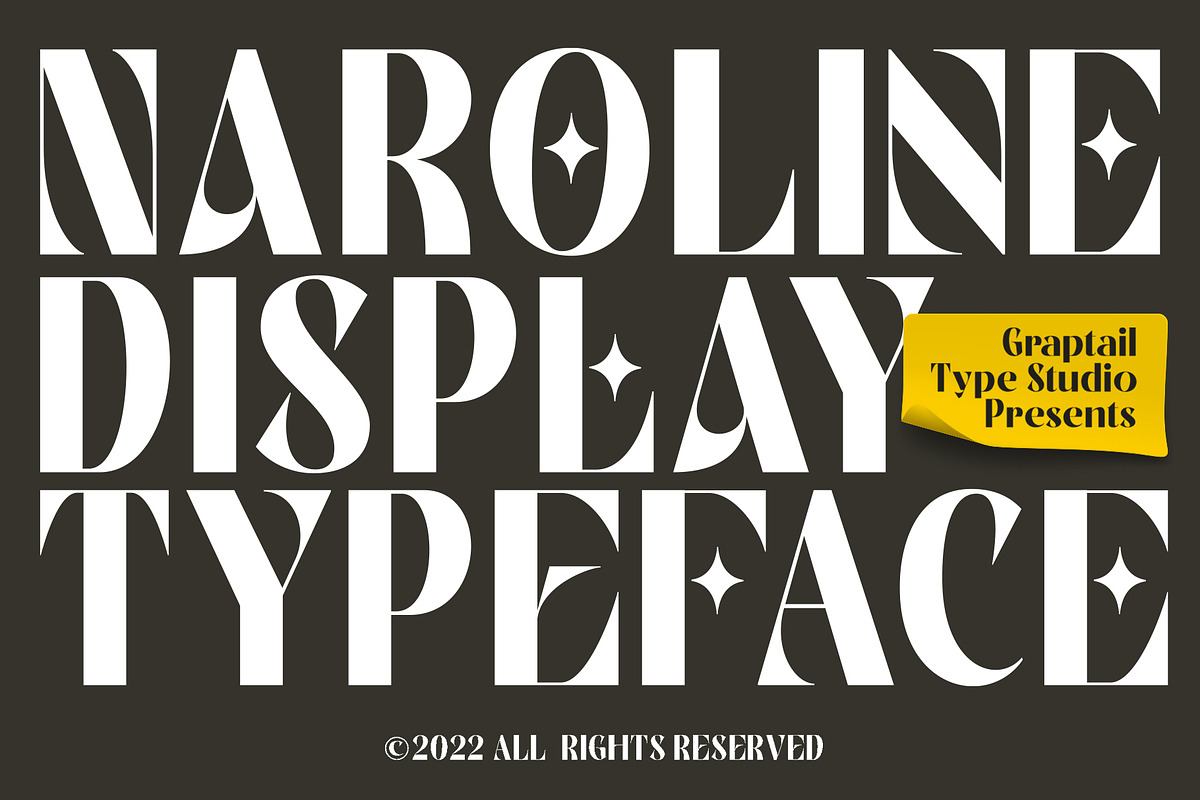
Naroline Free Download
Naroline Font Free Download
Introduce a touch of Art Nouveau elegance to your designs with the Naroline Font Free Download — a distinctive typeface that blends vintage charm with modern versatility. Inspired by the Art Nouveau era, Naroline features bold letterforms with intricate detailing, making it ideal for branding, posters, editorial designs, and creative projects that seek a classic yet contemporary aesthetic.
This font stands out with its strong character and unique style, capturing the essence of early 20th-century design while remaining relevant for today's creative needs. Whether you're crafting a logo, designing packaging, or creating promotional materials, Naroline adds a sophisticated flair to your typography.